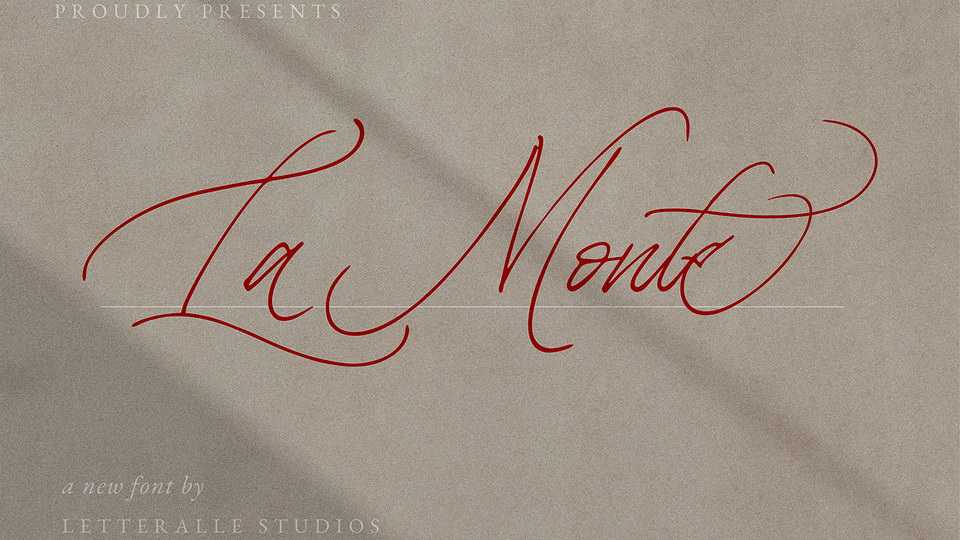
Download La monte font, a calligraphy typeface with a classic and natural feel. With natural touches and detailing, La Monte also brings an elegant impression that will bring your designs to a different class.